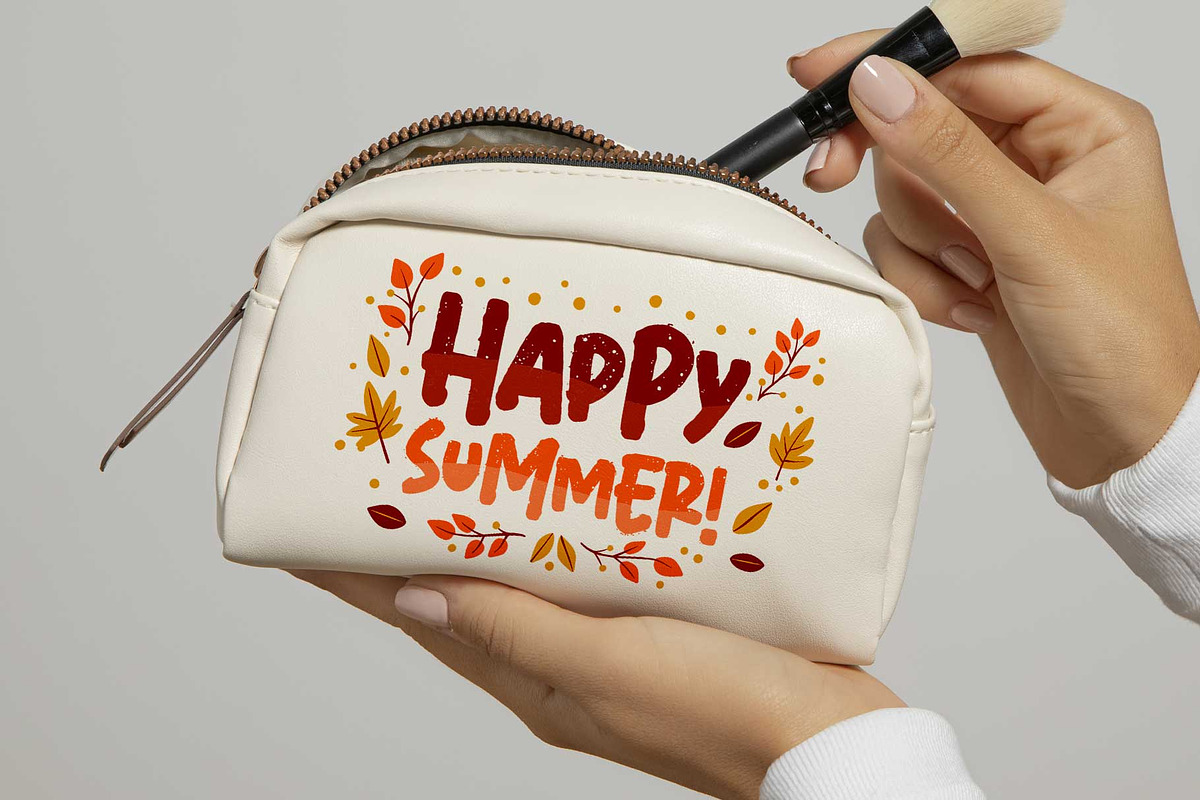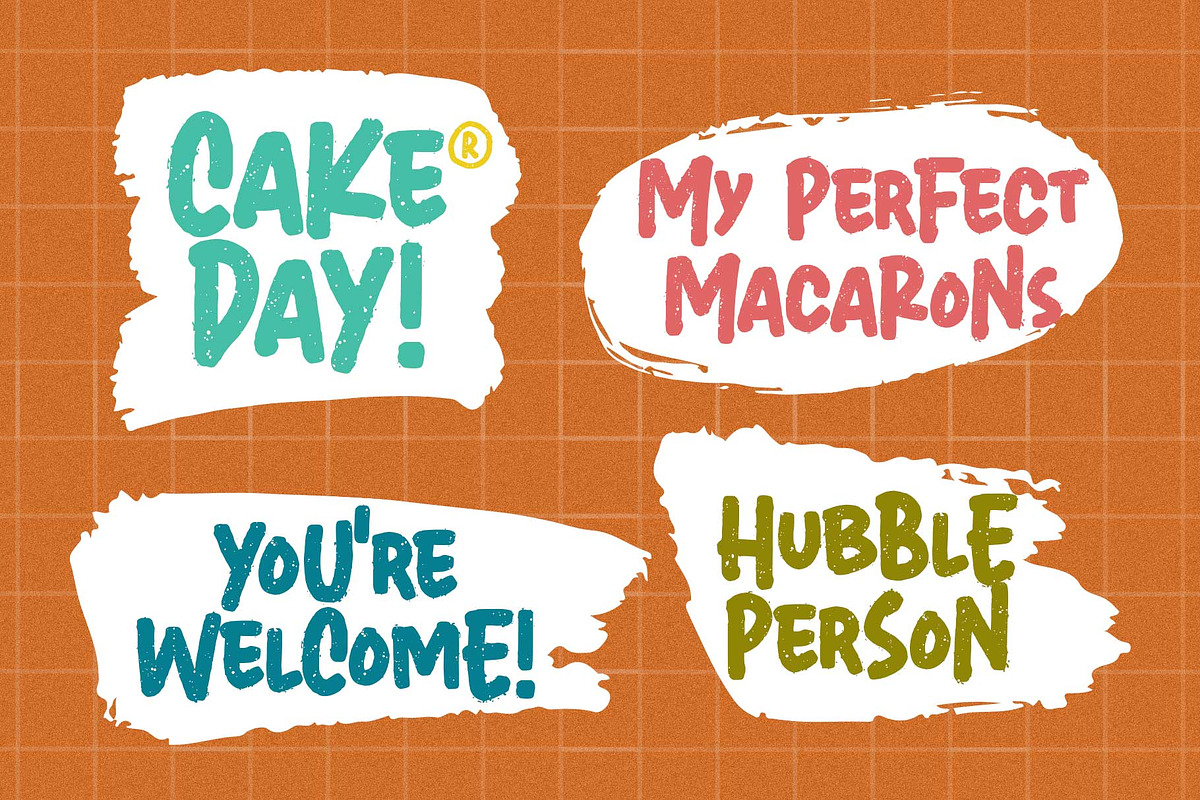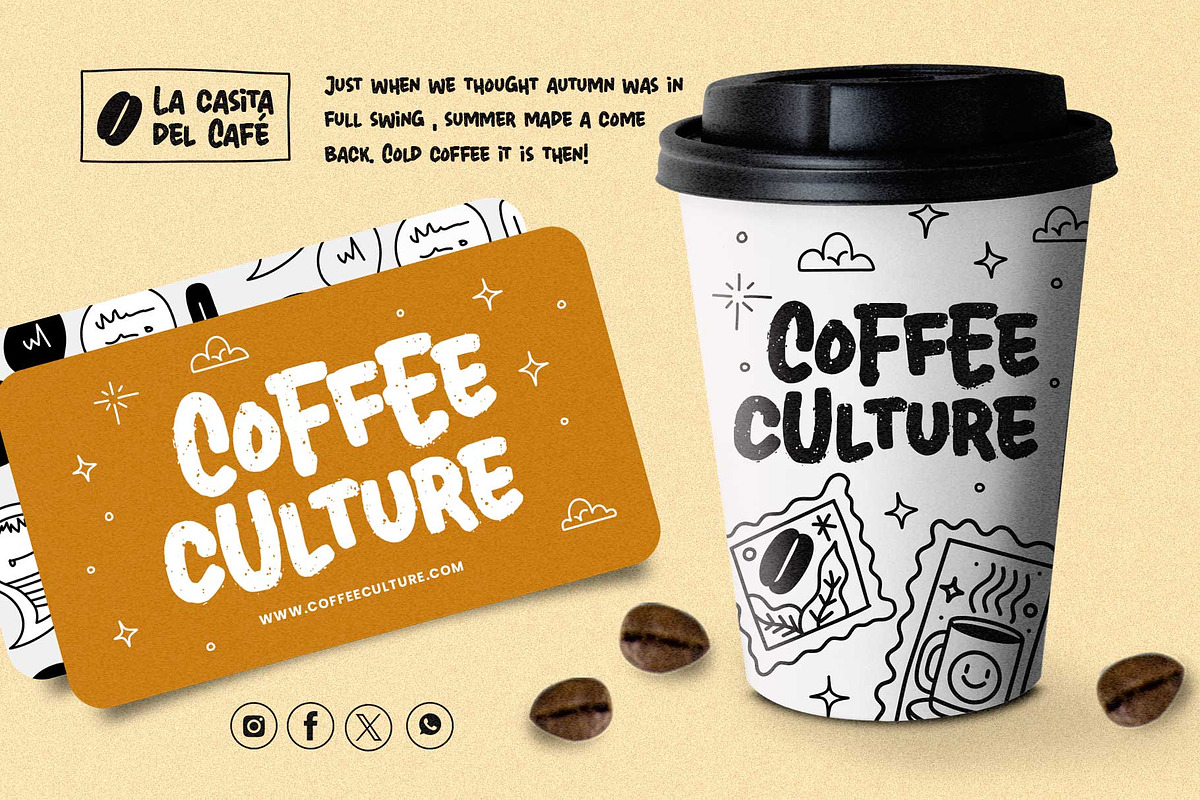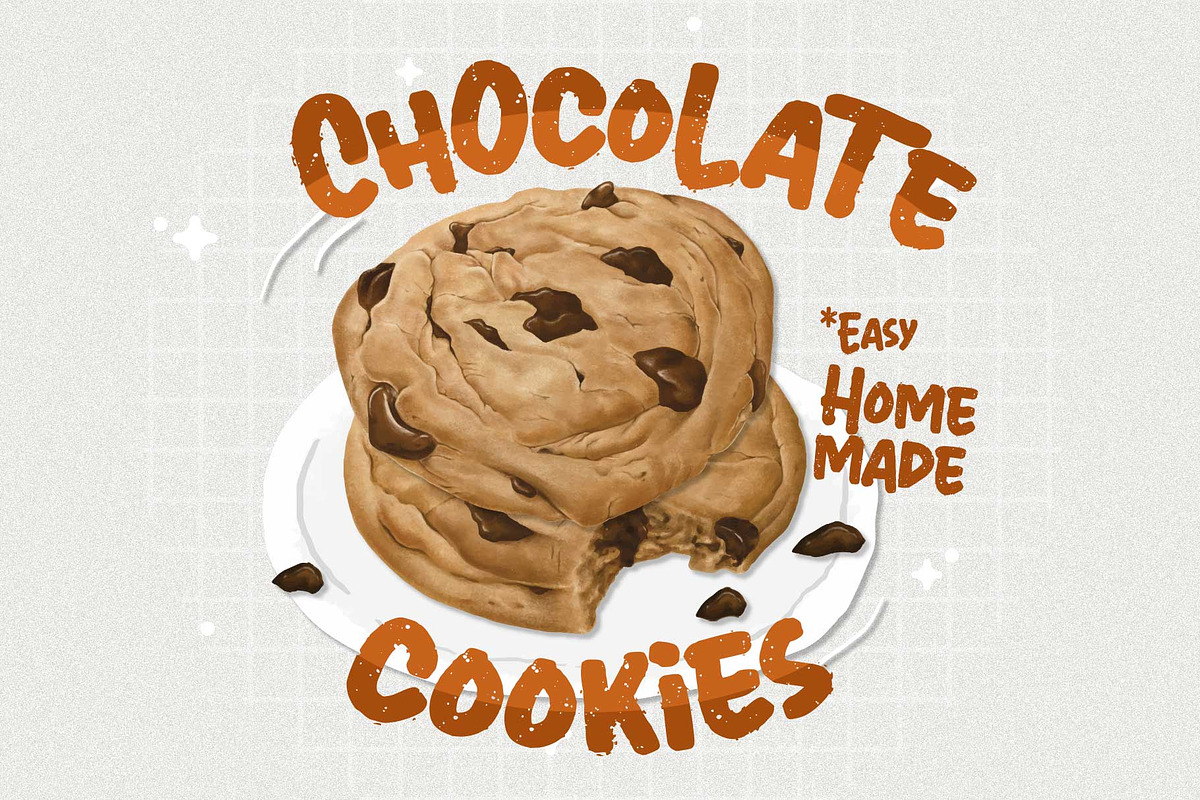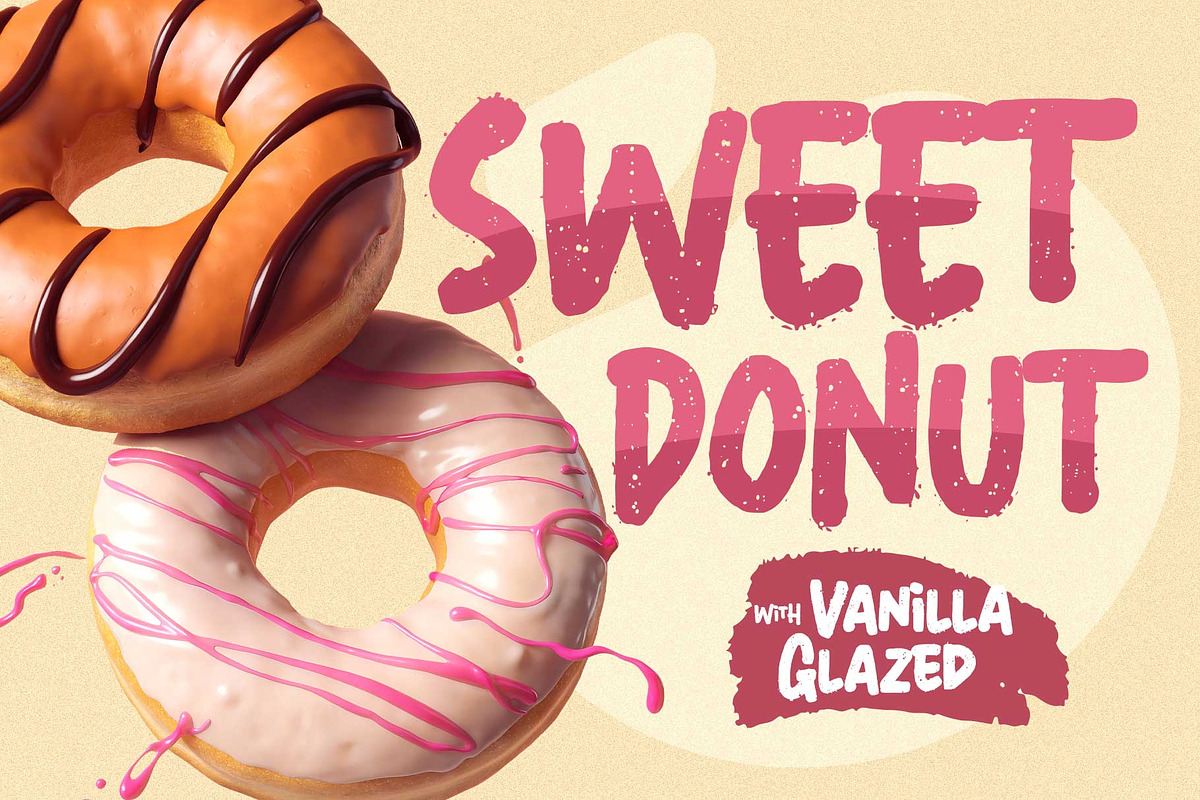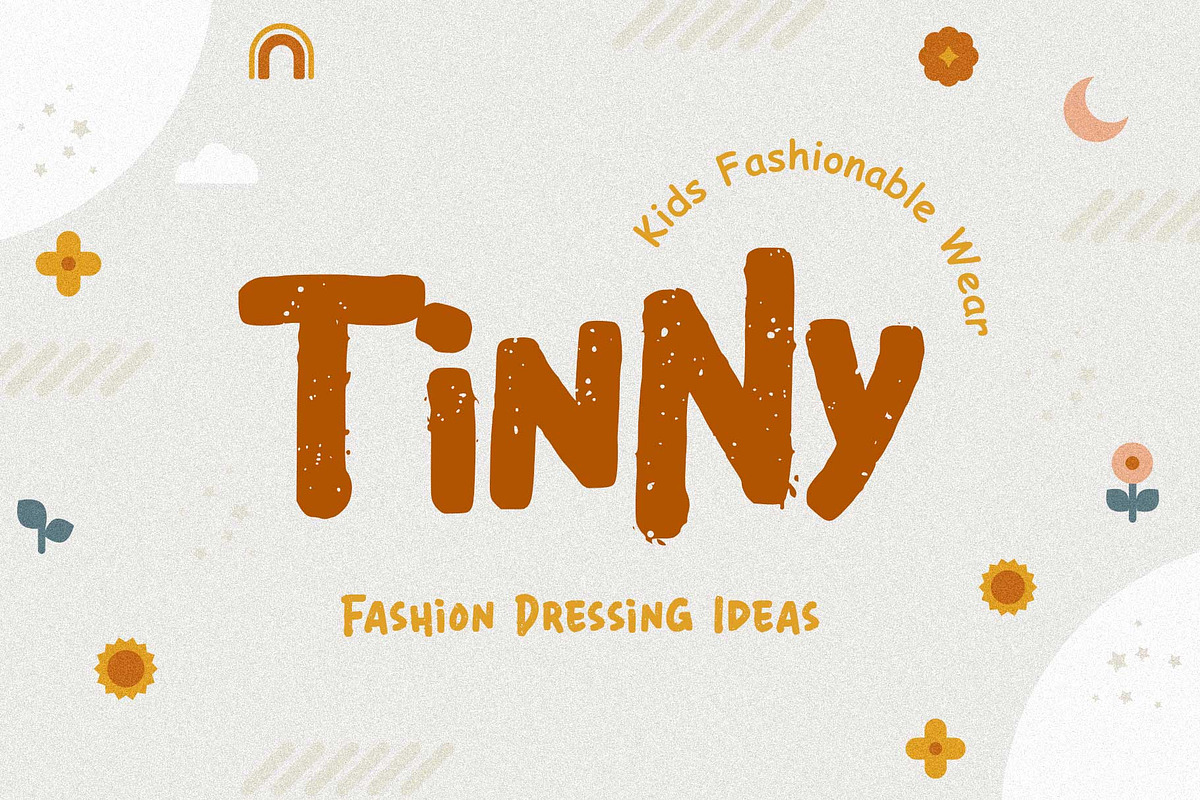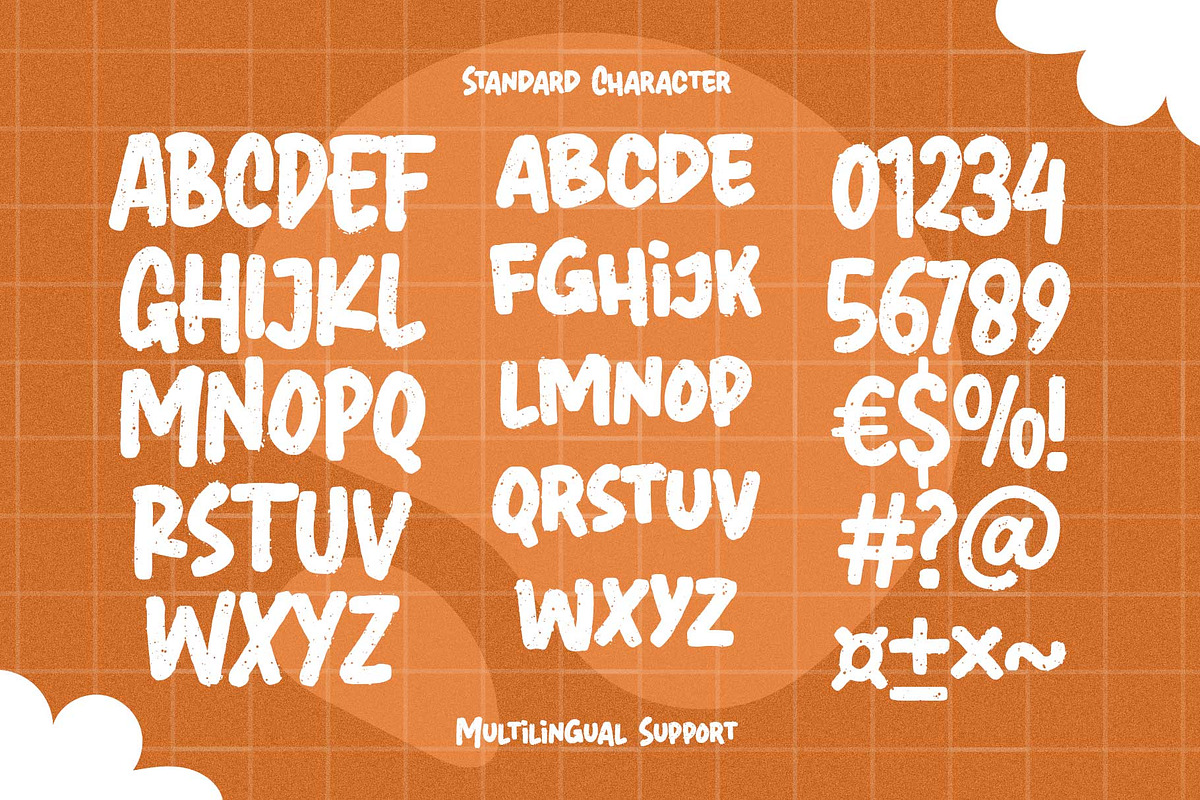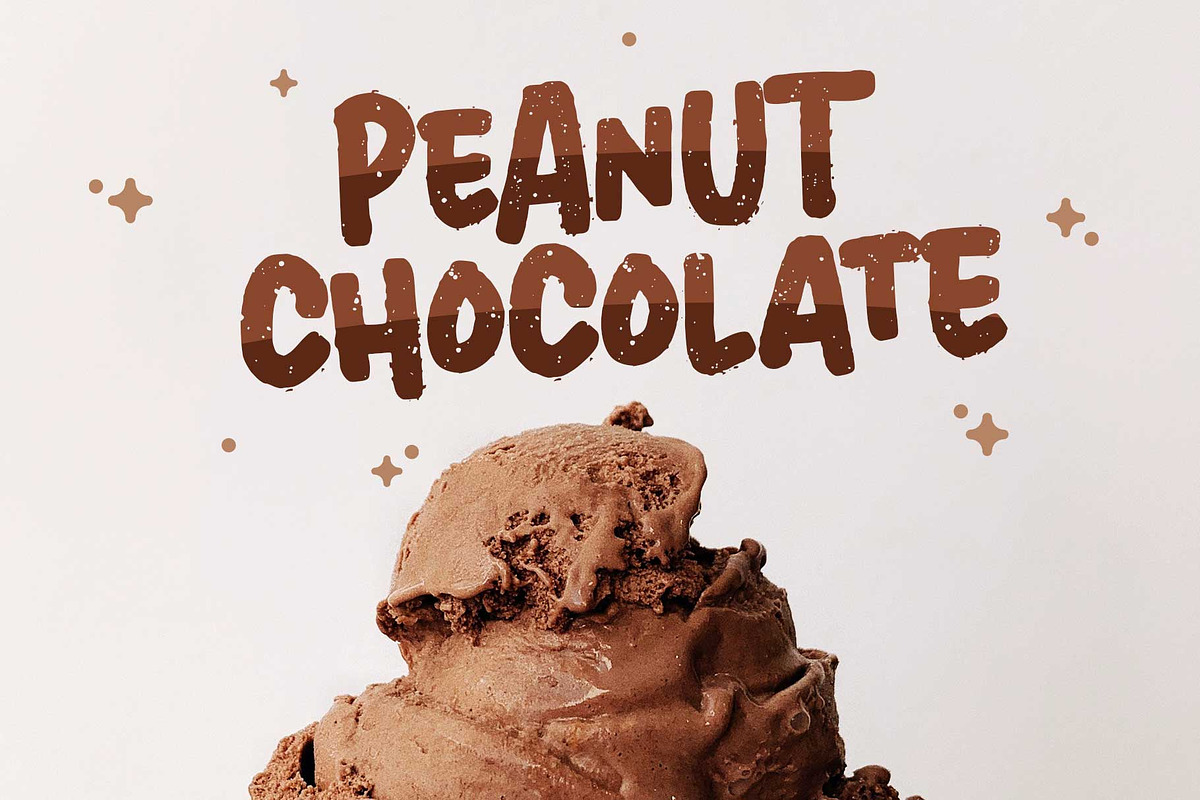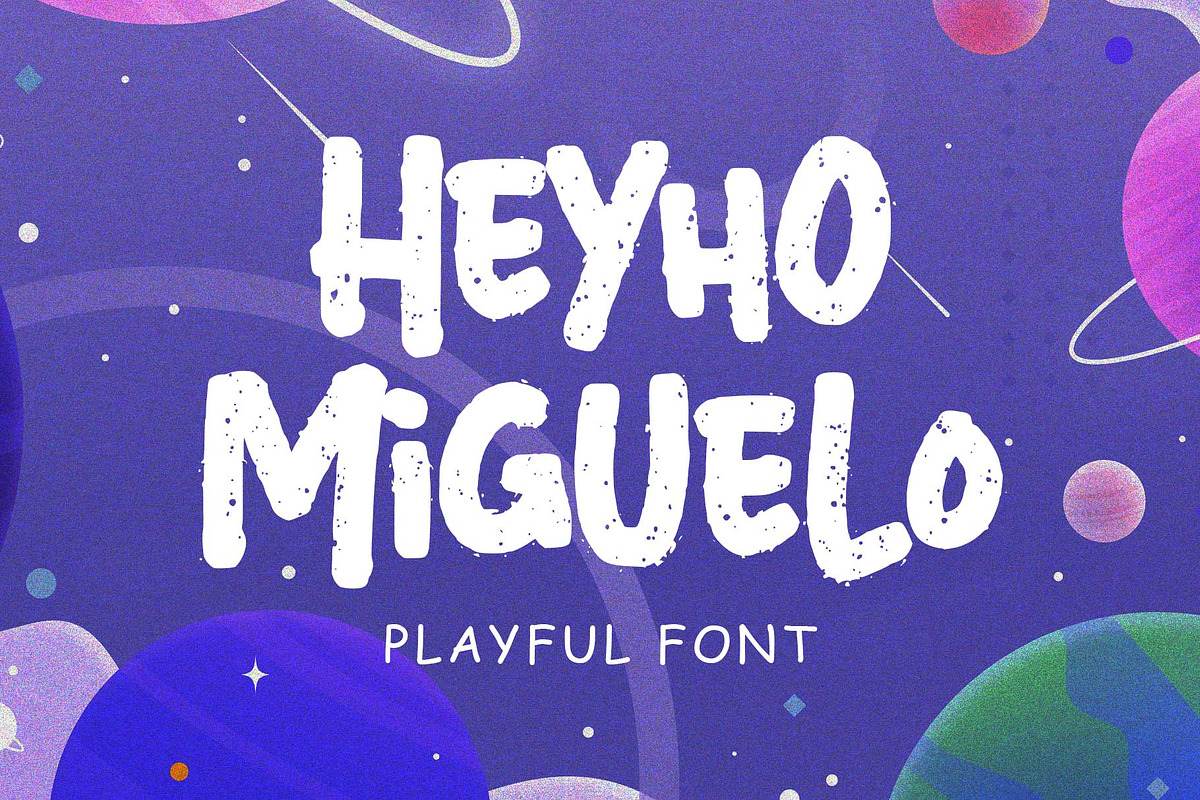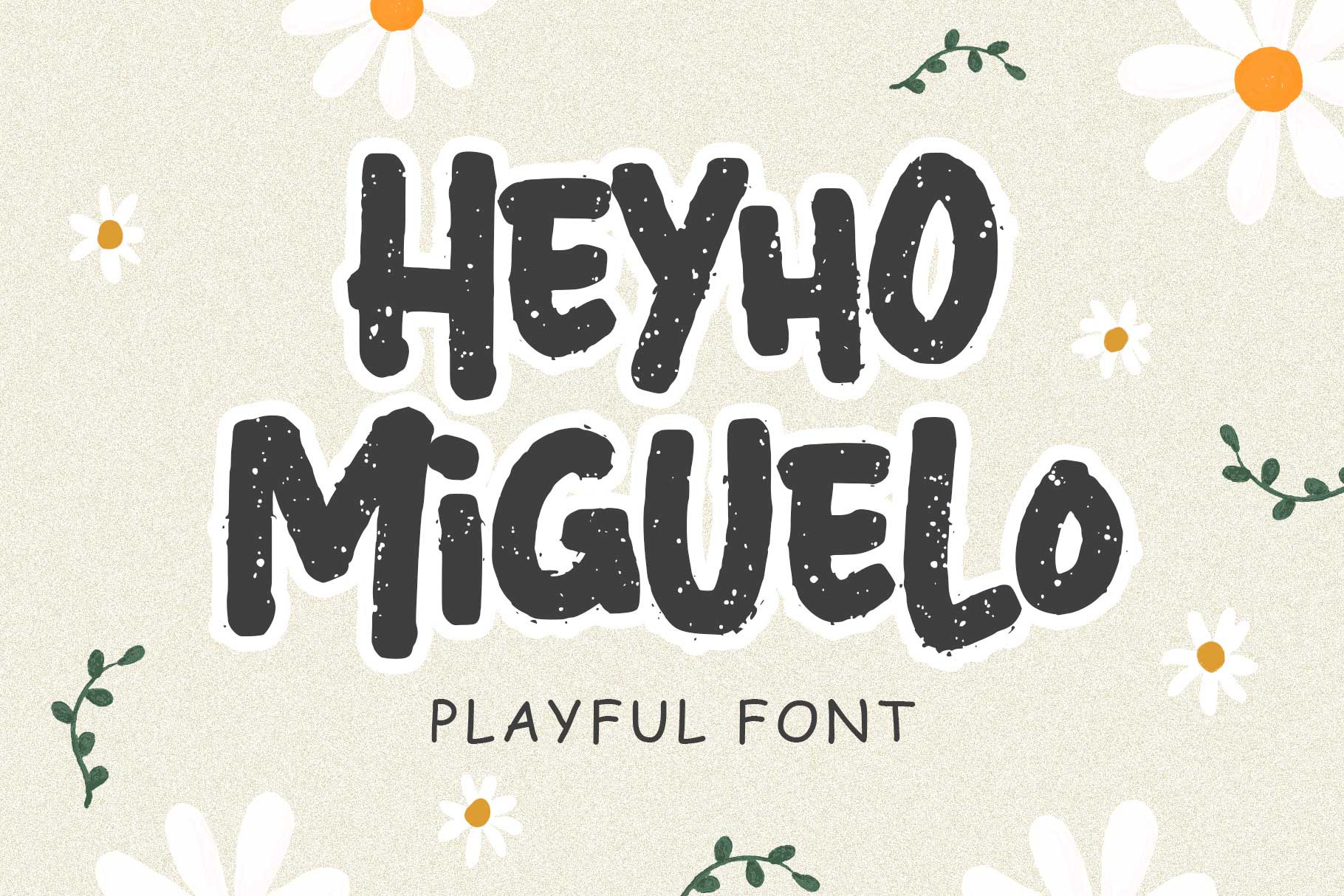
Heyho Miguelo! - Playful Font
Meet Heyho Miguelo! This distinctive handwriting font effortlessly captures the natural flow of handwriting with a playful design and a subtle rough touch on the letterforms, adding a unique and cheerful vibe to your typography.
Versatile and perfect for posters, flyers, quotes, merchandise, decals, and more, Heyho Miguelo! ensures your designs stand out with charm and individuality. Elevate your creative projects with this font, designed to leave a lasting impression across various applications.